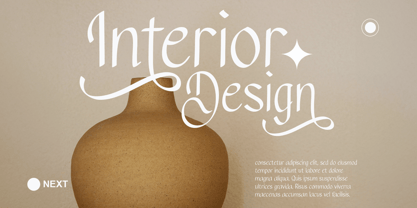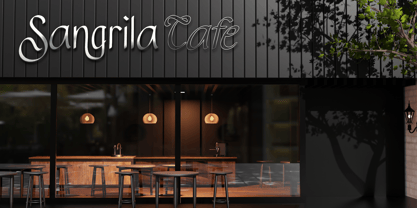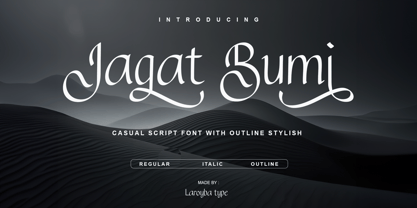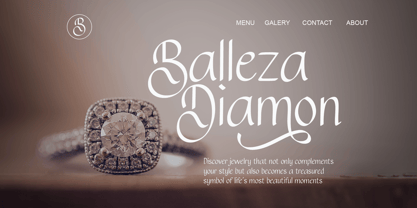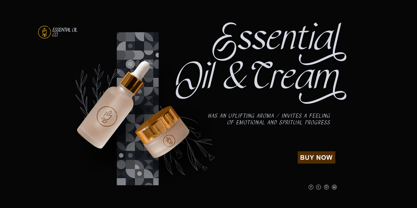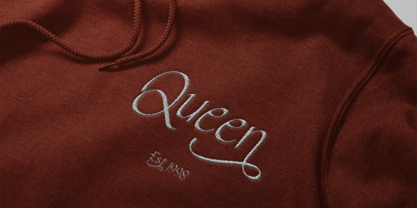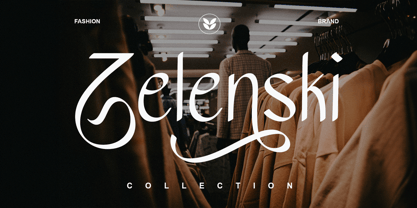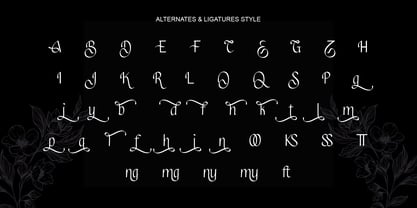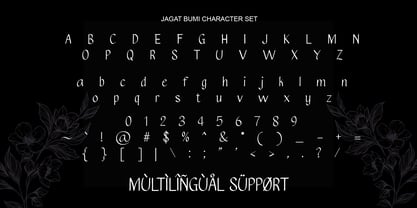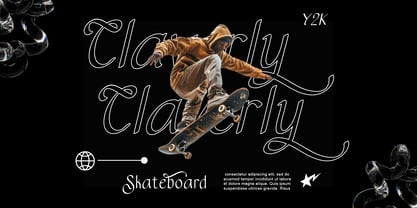
Jagat Bumi
by Laroyba Type
The Jagat Bumi Font Family was designed by Habib Abdur Rofi and published by Laroyba Type. Jagat Bumi contains 4 styles and family package options. More about this family
🪶 Jagat Bumi – Casual Script Font with Stylish Outline Jagat Bumi is a modern script font that brings an elegant, soft, and naturally handcrafted feel to your design. With its smooth curves and graceful letterforms, Jagat Bumi perfectly fits a wide range of design projects such as branding, logos, packaging, invitations, jewelry design, cosmetic labels, wedding designs, and editorial art. This font comes in three charming styles: ✨ Regular ✨ Italic ✨ Outline Each style includes beautiful alternates and ligatures, giving every letter a lively and unique appearance. With multilingual support, Jagat Bumi allows you to create in multiple languages with ease. ✨ Features: 🖋️ 3 Styles – Regular, Italic & Outline 🌸 Many Alternates & Ligatures 🌍 Multilingual Support 💎 Perfect for branding, fashion logos, boutique, beauty products, elegant packaging, and more With its casual yet classy look, Jagat Bumi is the perfect choice for designers who want to highlight a modern, feminine, and natural touch in their creative projects.